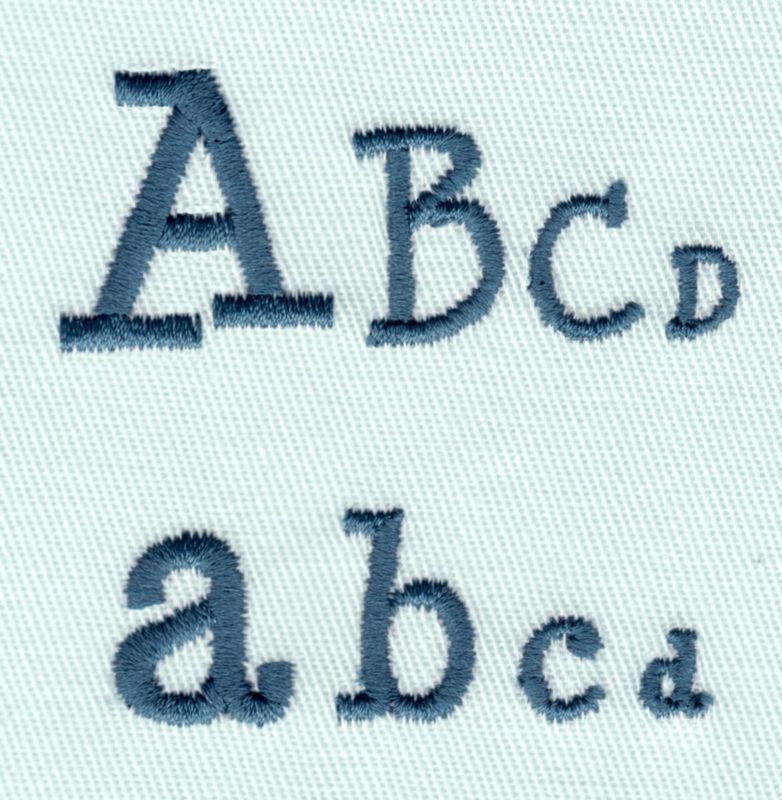
327 Minya Mini Satin Font
Minya Mini Satin Font comes in 0.25", 0.5", 0.75" and 1" heights. All sizes based on the capital "A" are finished in standard Satin stitching. Includes uppercase letters, lowercase letters, numbers and four punctuations.